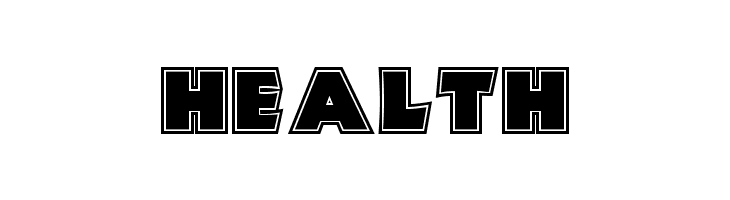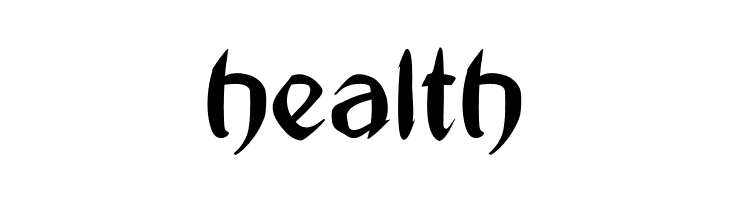
A sleek, modern font with geometric lines and a monospaced appearance.
A speckled, dynamic font with a playful slant and consistent stroke width.
A bold, 3D-effect font with consistent width and dynamic texture.
A bold, graffiti-inspired font with sharp, angular lines and a hand-drawn look.
A bold, angular font inspired by Japanese calligraphy with a modern edge.
A bold, geometric font with striped and solid sections for a modern look.
A modern, geometric font with bold, striped patterns and angular forms.
A bold, Gothic-inspired font with sharp serifs and dramatic styling.
A bold, chiseled font with a three-dimensional effect, perfect for headlines.
A bold, sans-serif font with thick, uniform strokes for a strong visual impact.
A bold, hand-drawn font with a vintage, impactful style.
A bold, geometric font with decorative elements and intricate curves.
A decorative font with geometric elements and high contrast, offering a sophisticated yet playful style.
A playful, casual handwritten font with smooth, flowing lines.
A modern, elegant script font with flowing curves and sophisticated loops.
A graceful and elegant script font with flowing cursive strokes.
A graceful, cursive script font with elegant, sweeping strokes.
A futuristic, geometric font with a modular and consistent design.
A bold, jagged font with a rugged and aggressive style.
A bold, geometric font with high contrast and unique cutouts.
A bold, playful font with thick strokes and dynamic character shapes.
A bold, decorative font with a distressed, graffiti-like style.
A pixelated, retro-style font with a bold, geometric design.